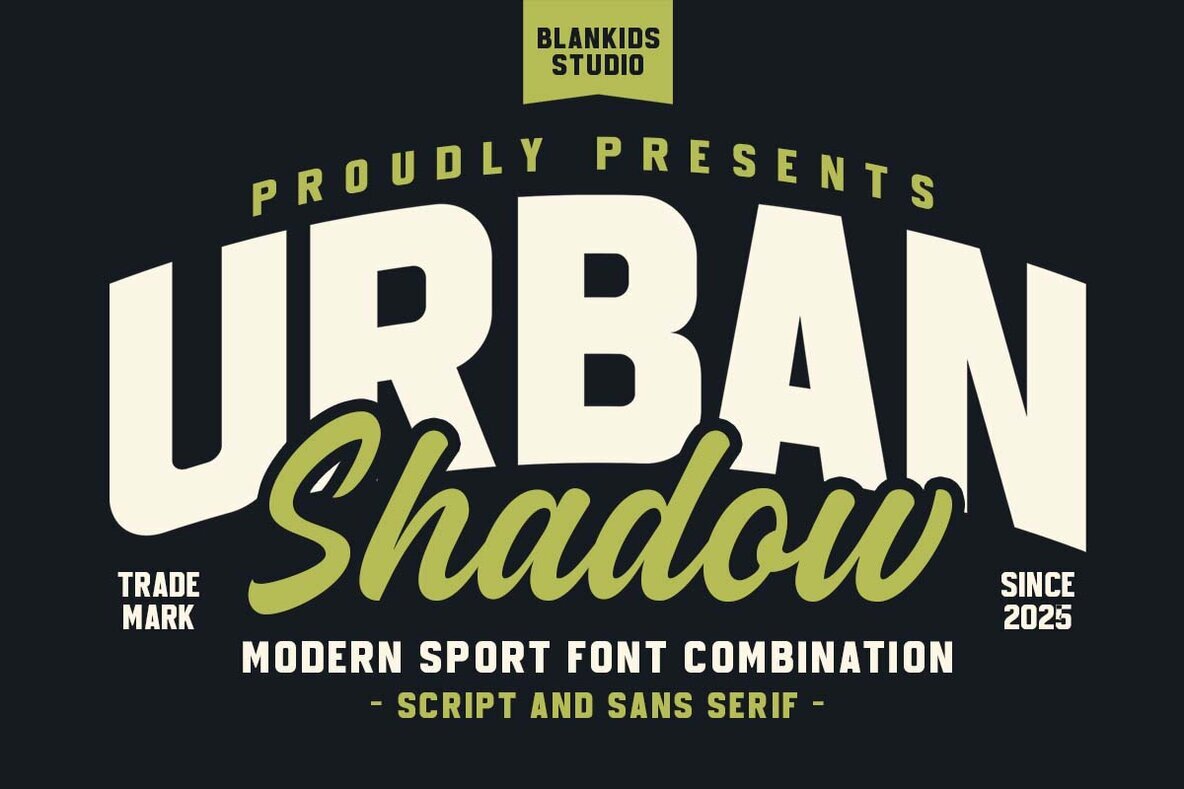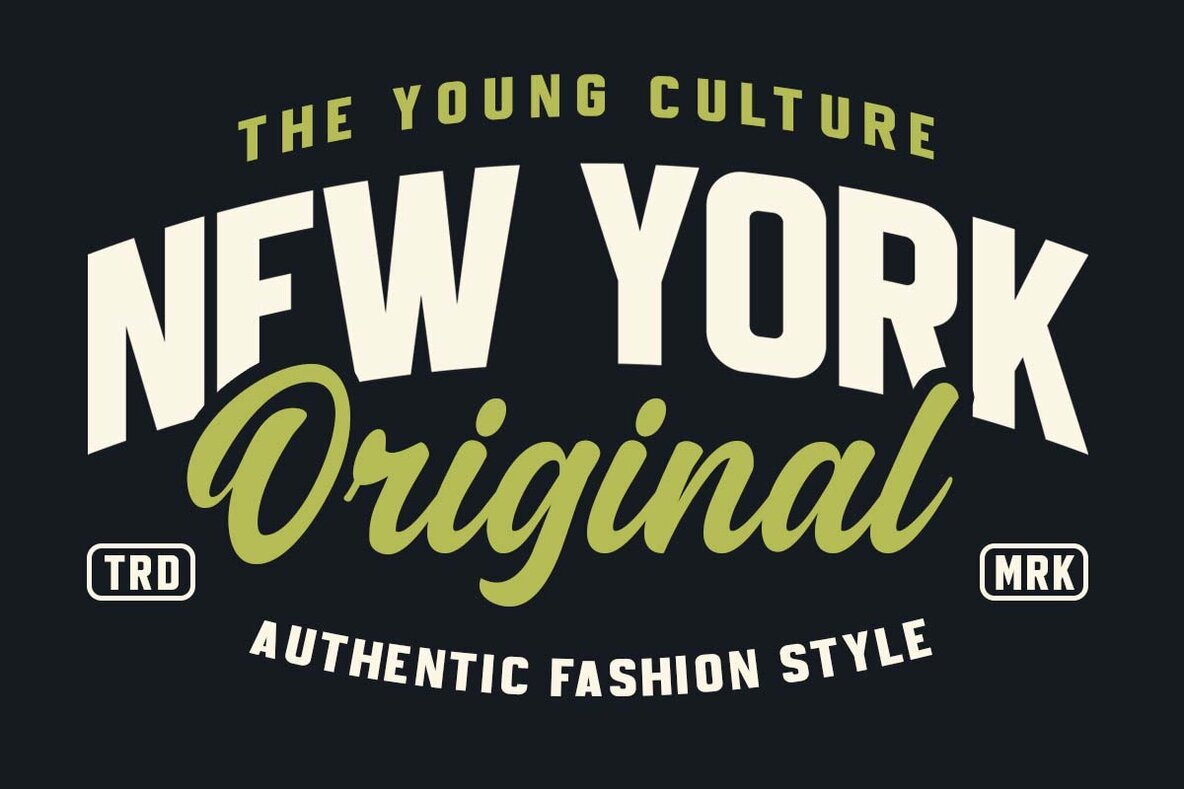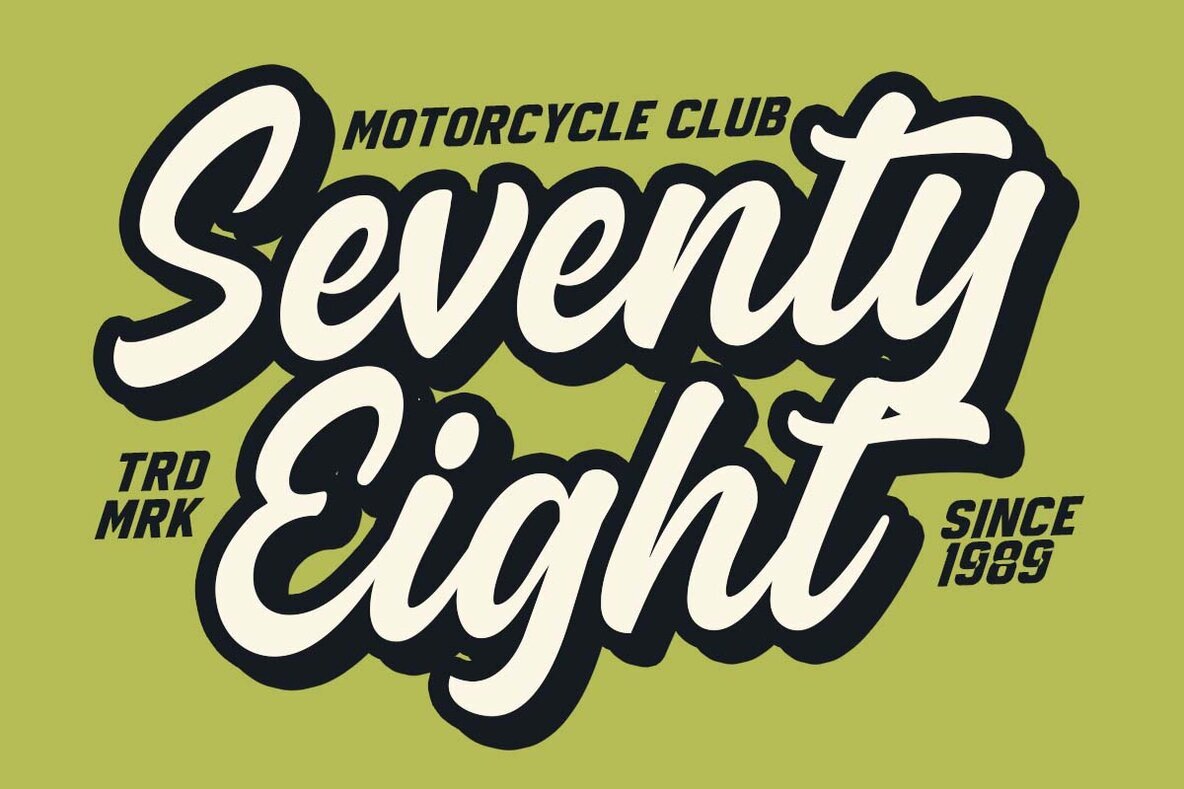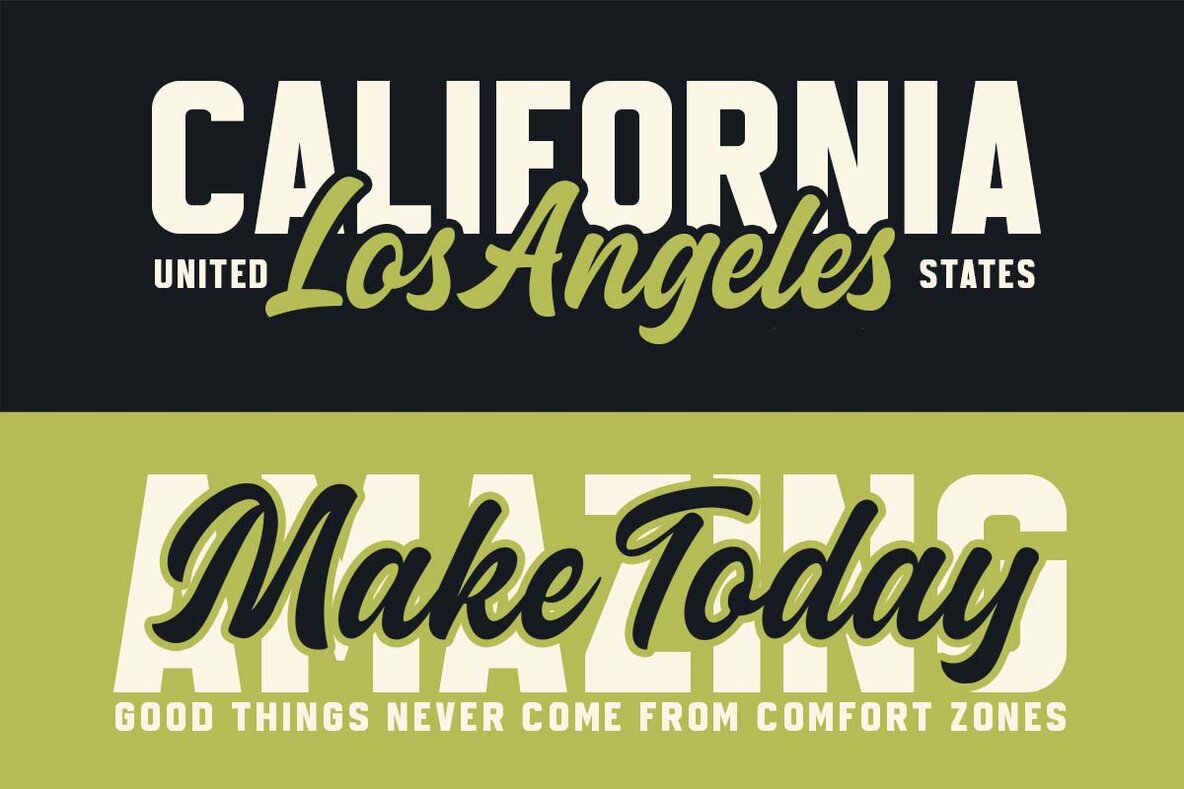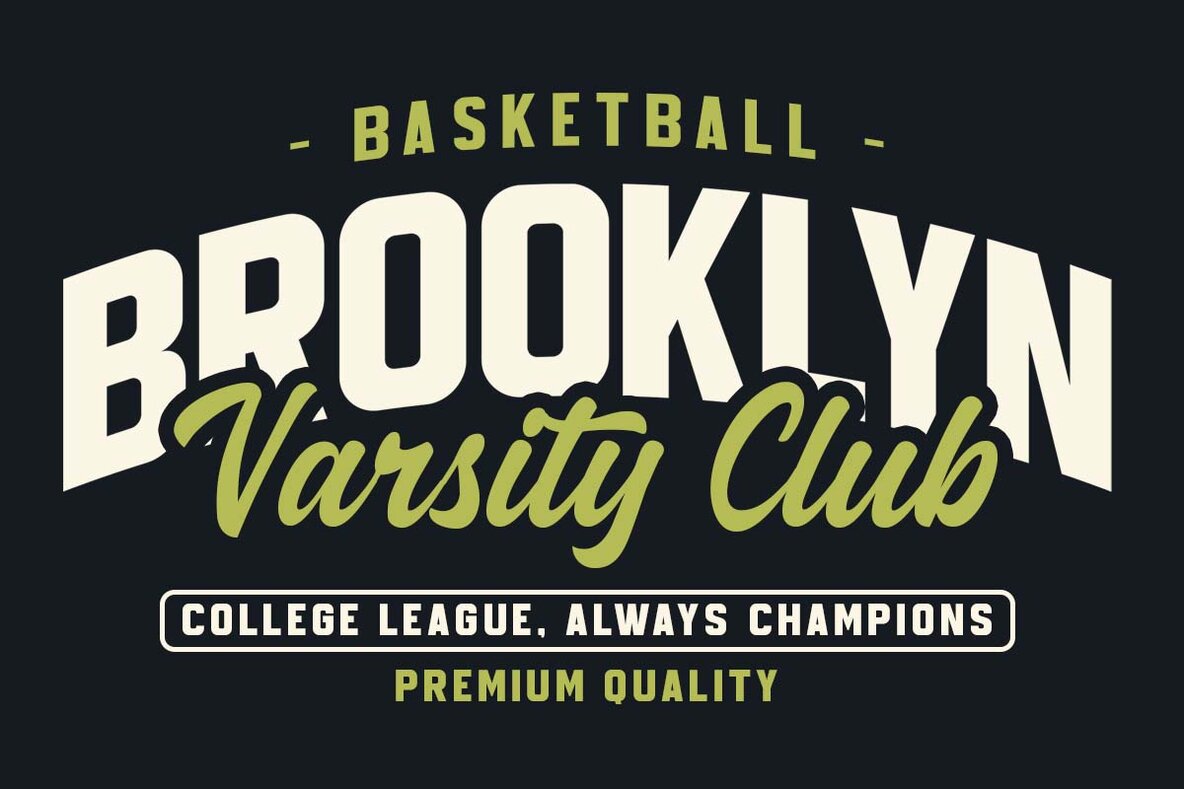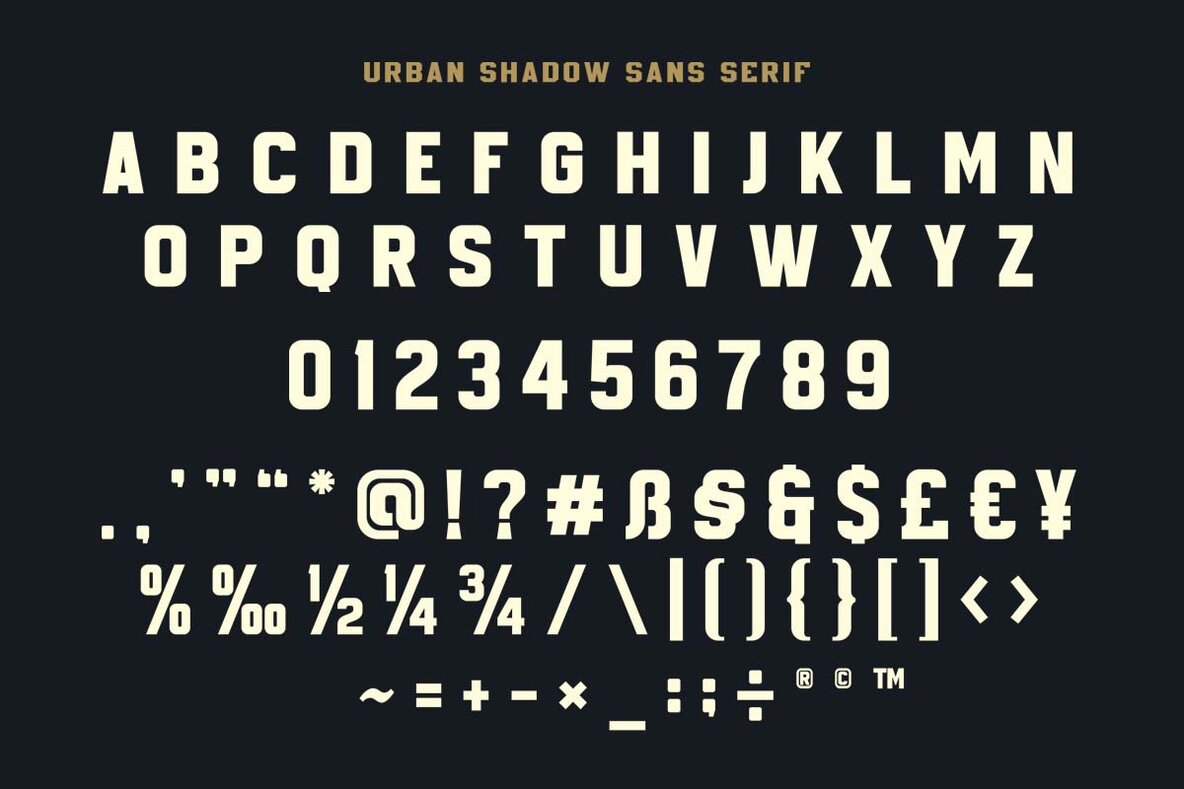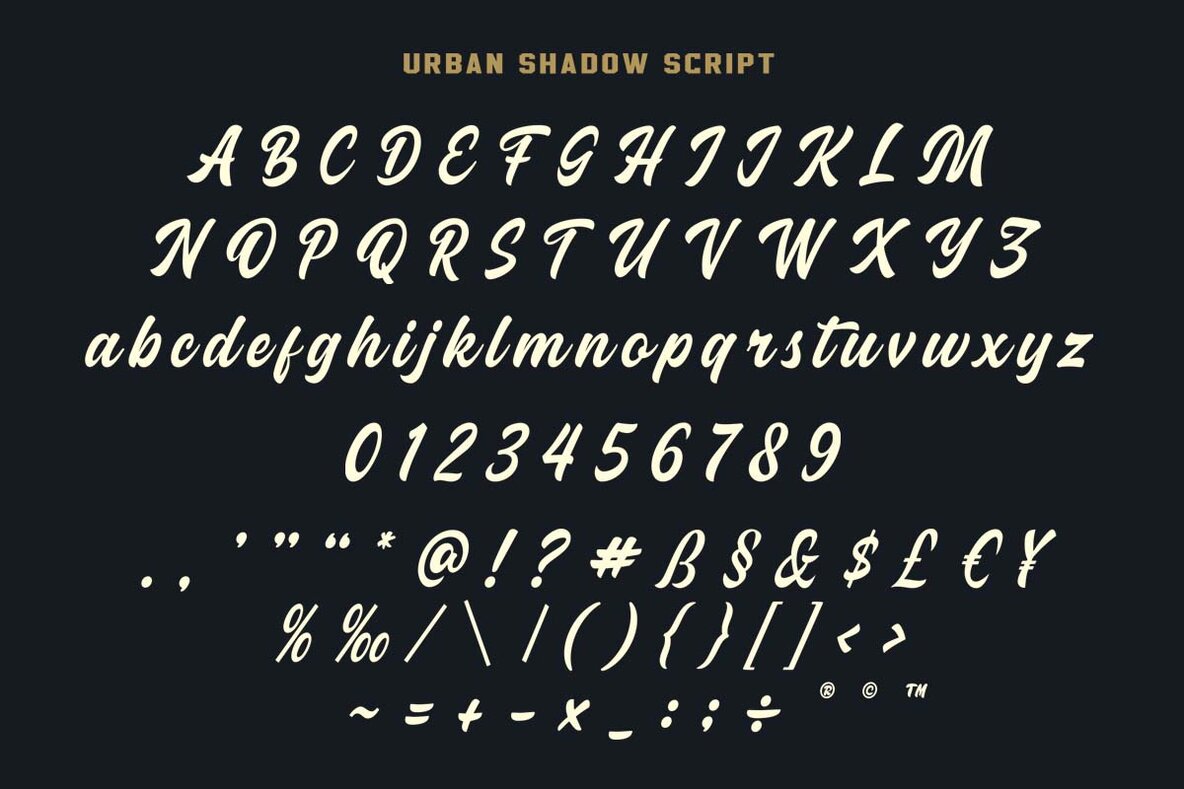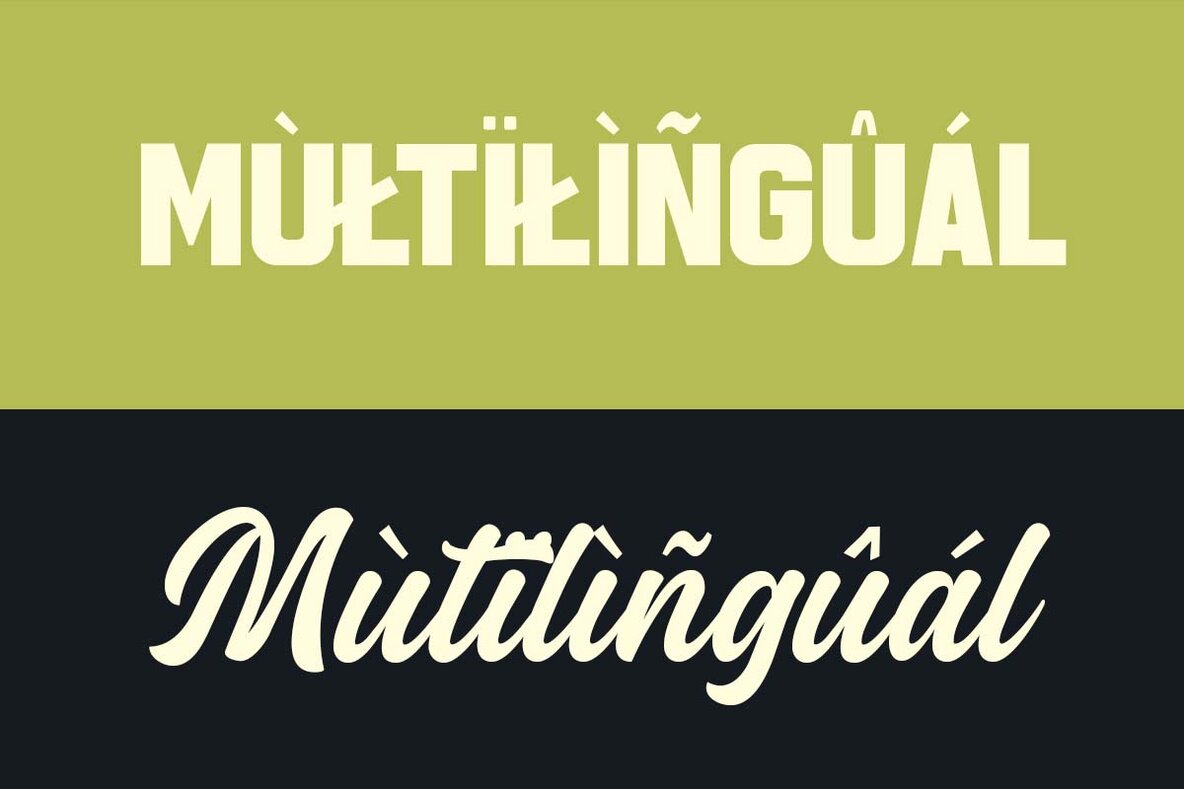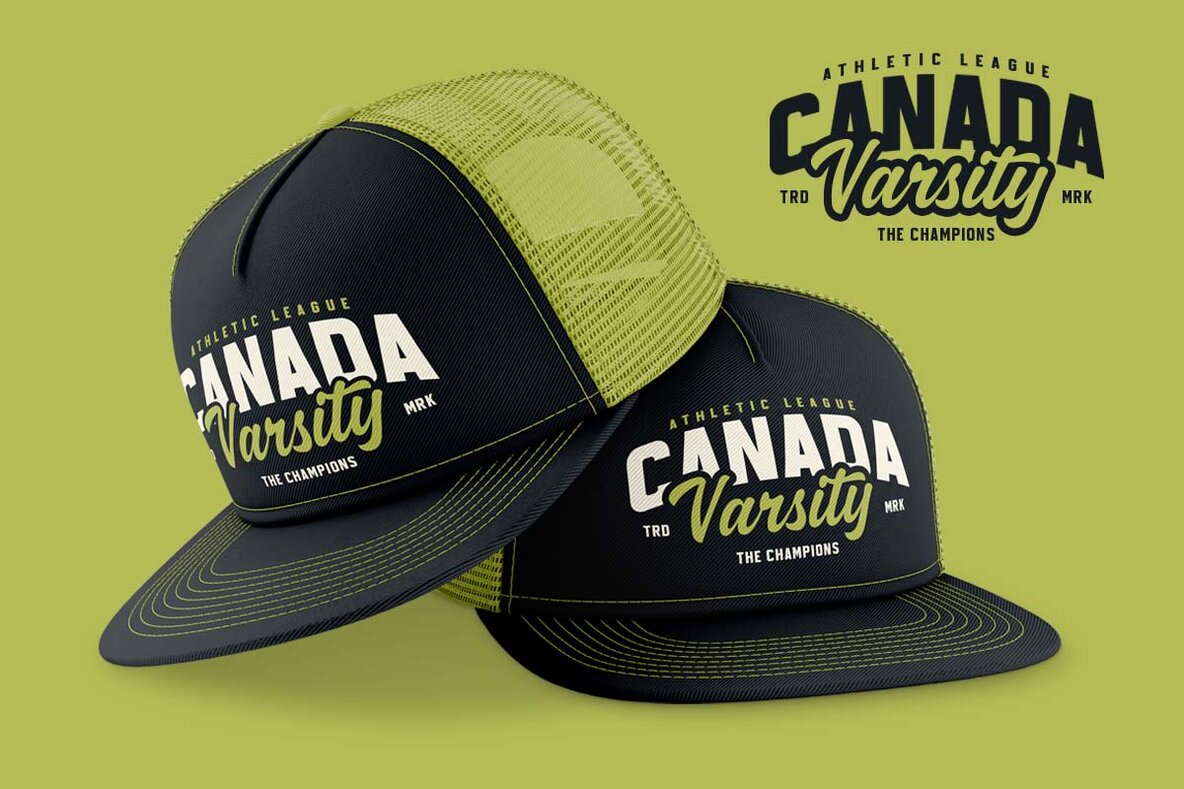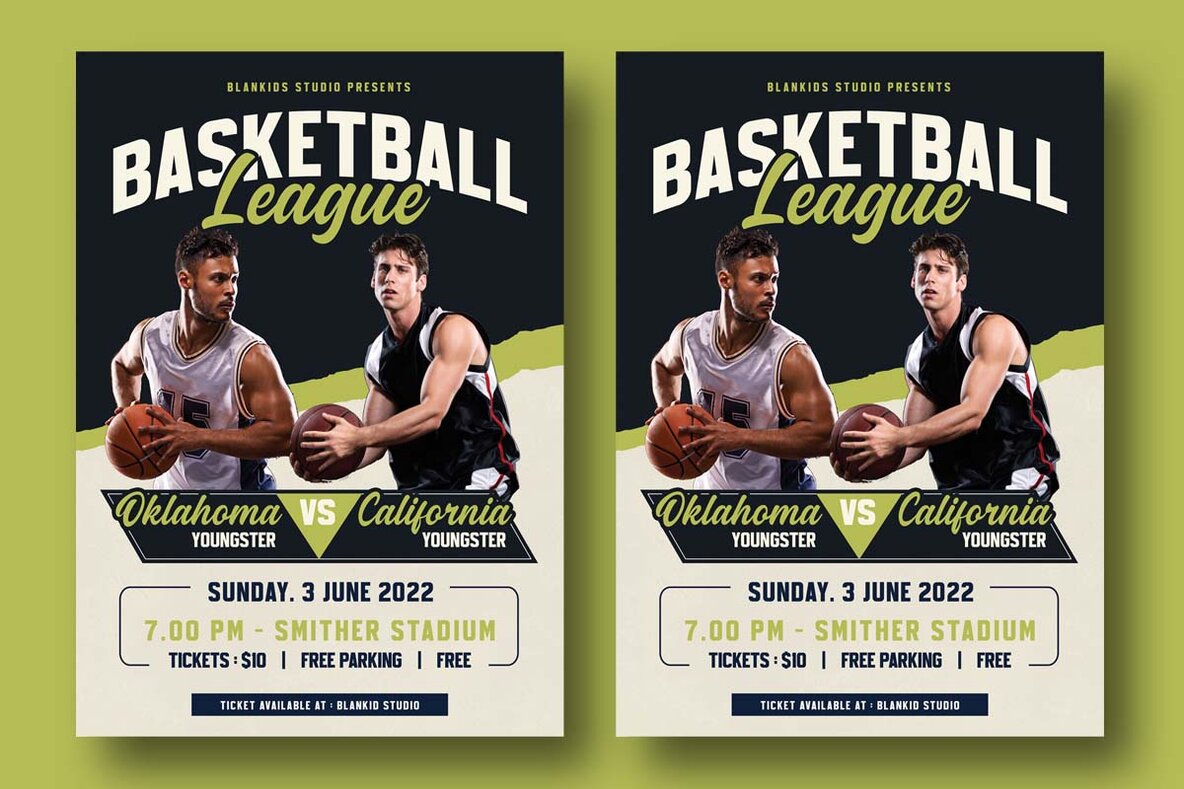
Urban Shadow Font
Urban Shadow Sans Serif
Urban Shadow Script
Introducing Urban Shadow, a distinctive typeface from Blankids Studio that marries contemporary design with an athletic flair. Perfect for projects requiring a bold, sporty aesthetic, Urban Shadow is an ideal choice for logos, branding, posters, product packaging, and promotional materials. This font offers a versatile blend of sans-serif and script styles, each letter reminiscent of college varsity fashion. Designed with modern sophistication, it includes a comprehensive set of uppercase and lowercase letters, numerals, and punctuation.Urban Shadow: A Modern Sport Font Combination